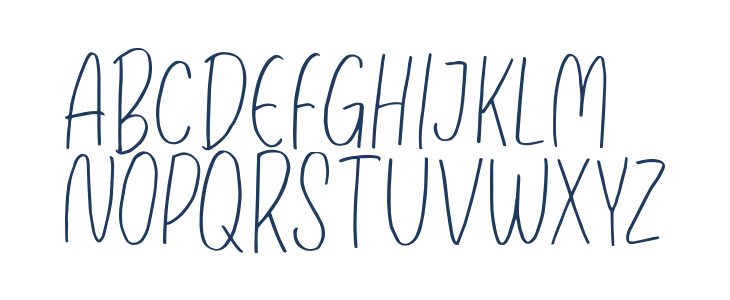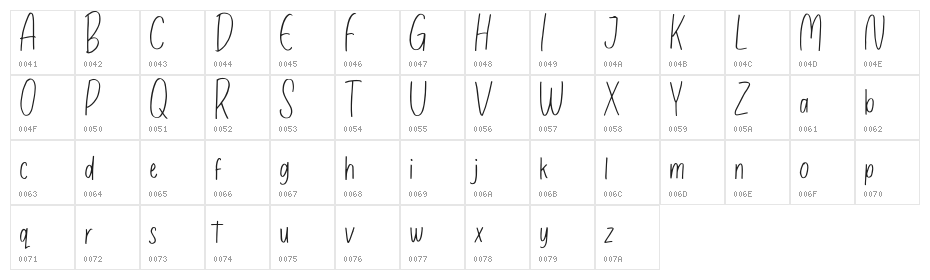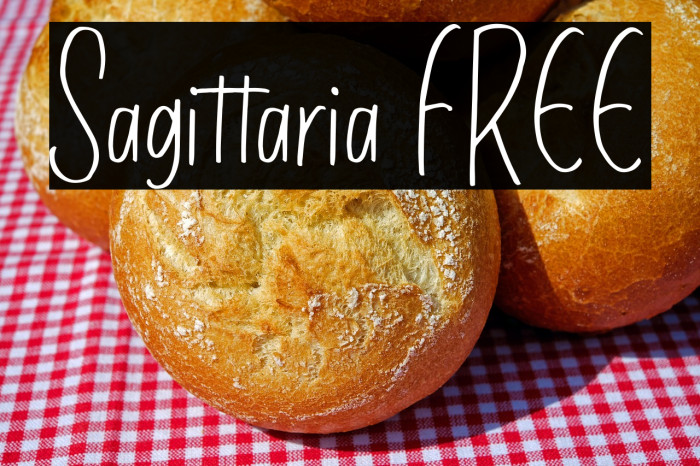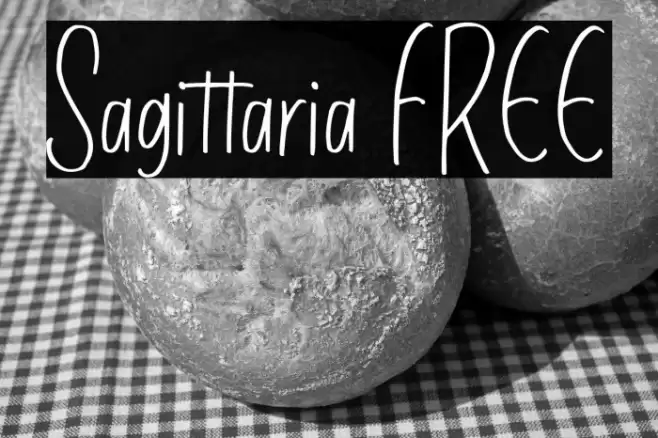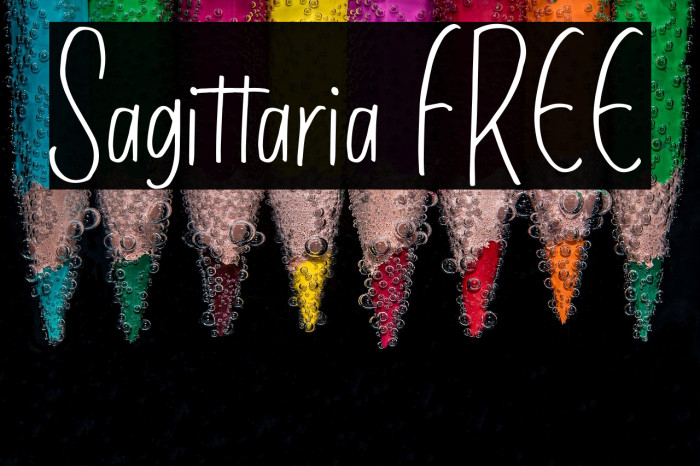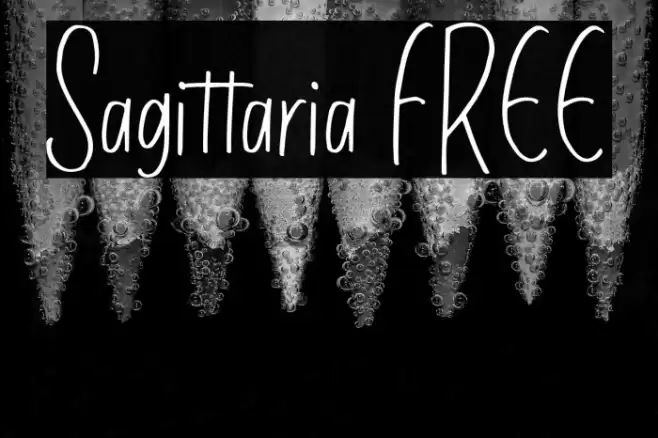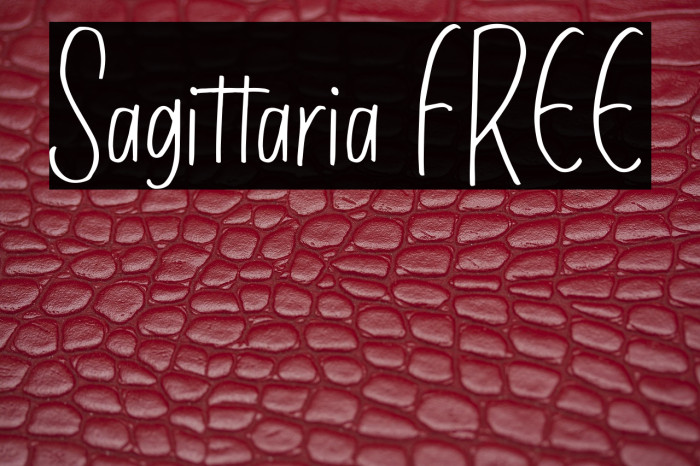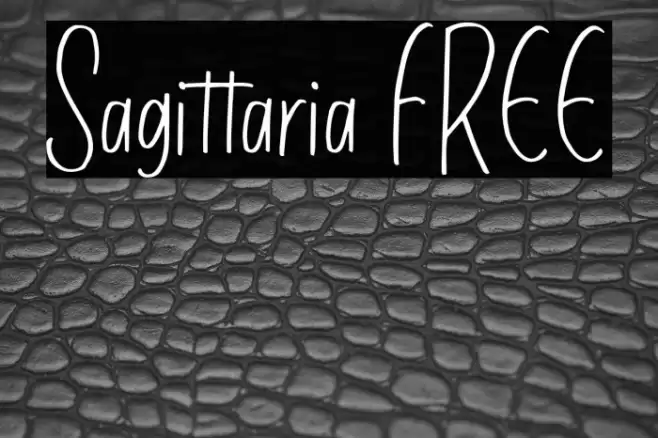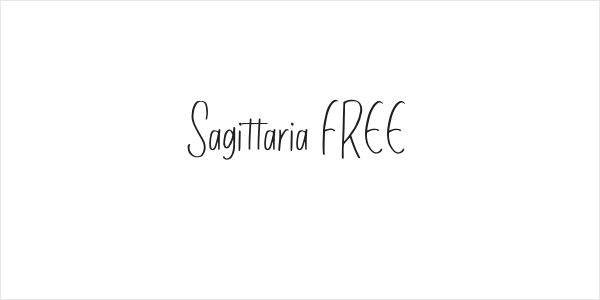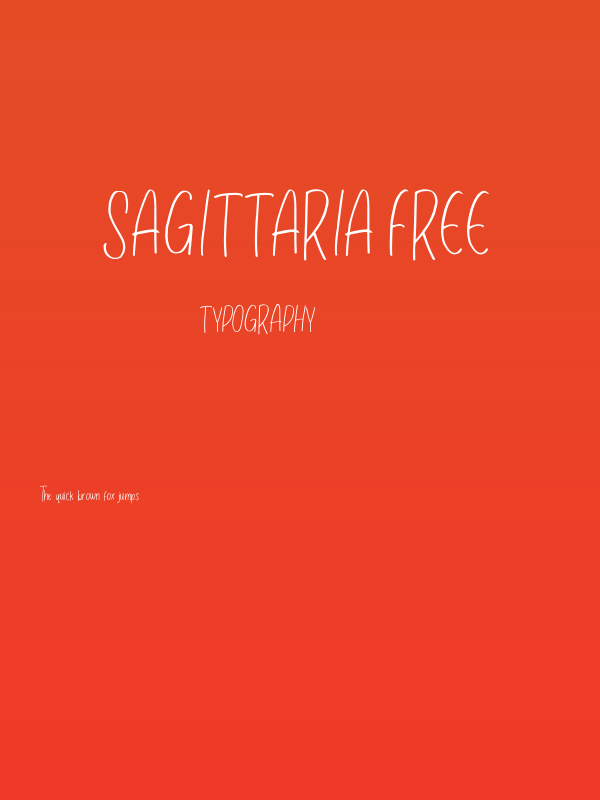
Sagittaria FREE Font
Sagittaria FREE Description
A handwritten, casual script font with a playful and informal style, featuring thin, slightly irregular strokes that mimic natural handwriting.
| Overall Style | Casual, Playful, Informal |
| Use Case | Invitations, Greeting Cards, Children's Books, Personal Projects |